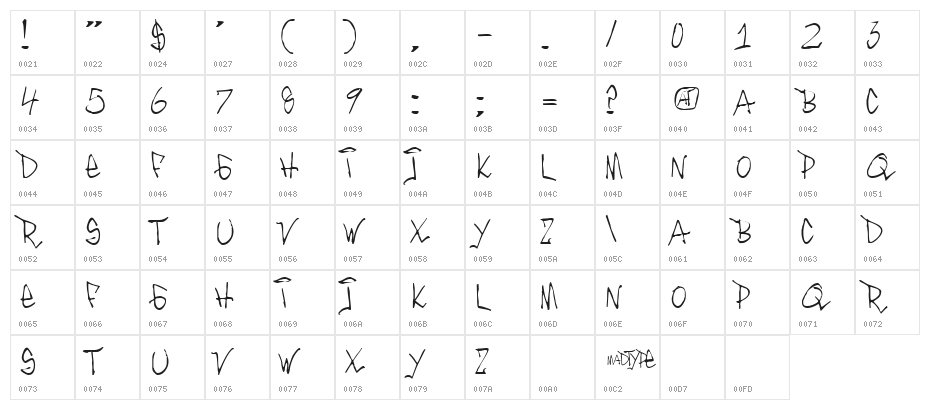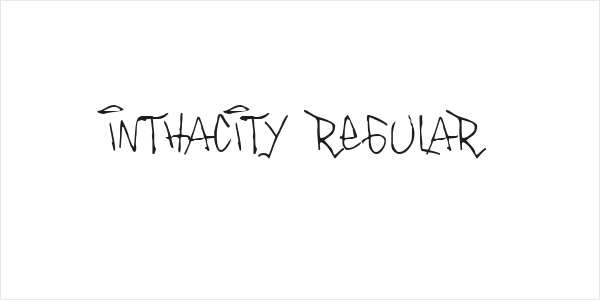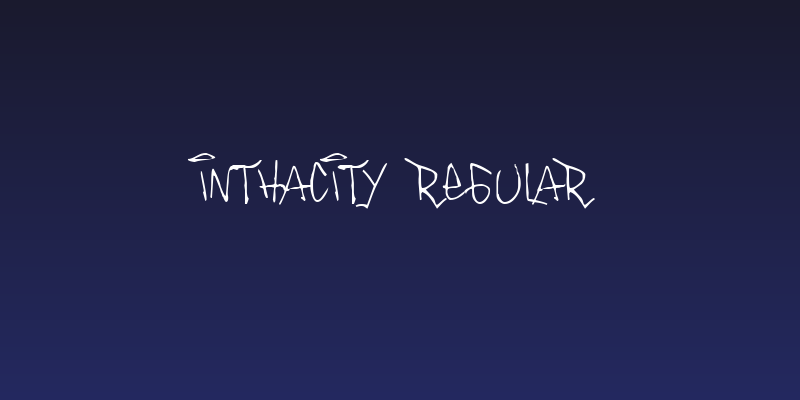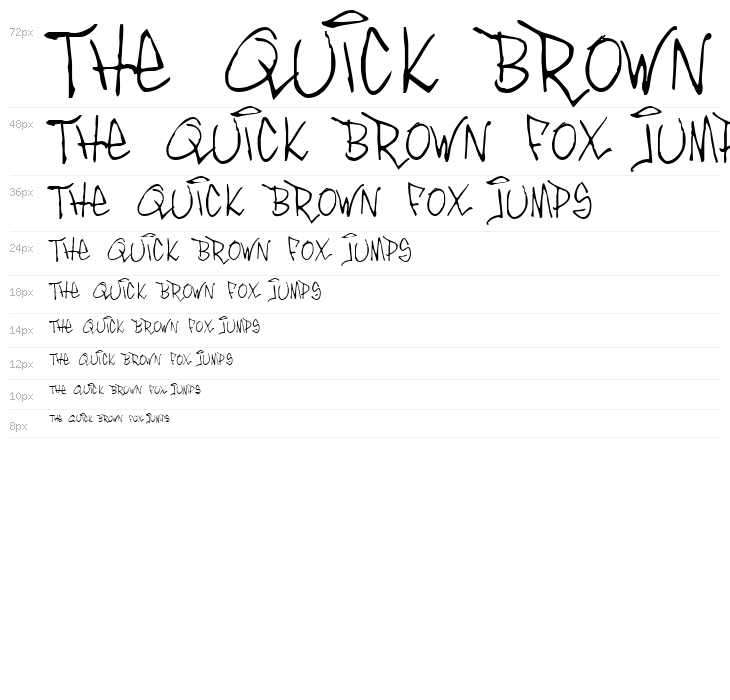
Inthacity Regular Font
Inthacity Regular Description
This font features a unique, graffiti-inspired style with an urban edge. The characters are irregular and dynamic, with a hand-drawn appearance that gives them a raw, energetic feel. The uppercase and lowercase letters maintain a consistent style, with exaggerated curves and sharp angles that create a sense of movement. The numbers and special characters follow the same aesthetic, adding to the cohesive look of the font. This design is perfect for projects that require a bold, street-art vibe.
Overall StyleUrban, Graffiti, Energetic
Use CaseLogos, Posters, Album Covers
Proposed ProjectsIdeal for street art designs, urban-themed posters, edgy branding, and music album covers.